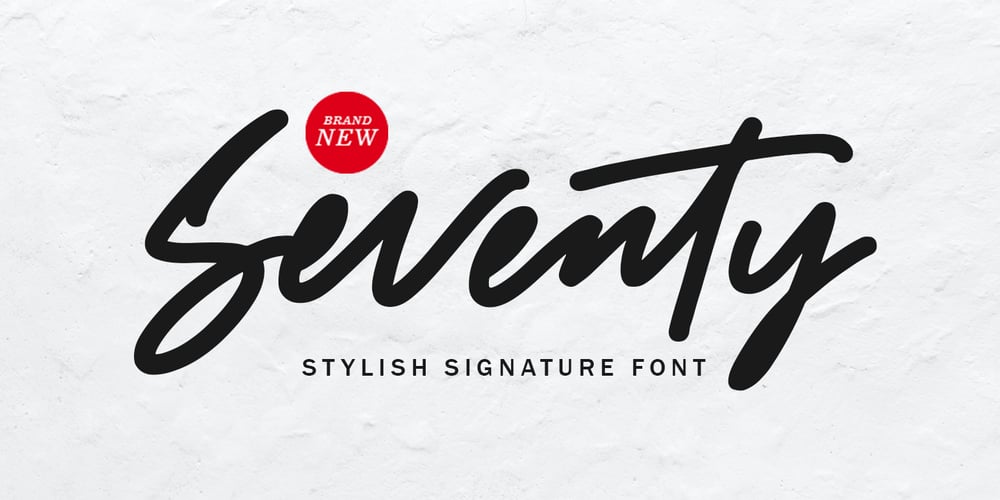
Seventy Font Family was designed by Muhammad Fajar and published by Lucky Type. Seventy contains 1 styles and family package options. Seventy is the newest signature font that is perfect for branding, business cards, quotes, posters, stickers, blogs, logos, weddings, birth announcements, photo overlays, printed goods, bags, t-shirts and more.This font has several unique ligatures that will beautify your writing.Thank you very much.